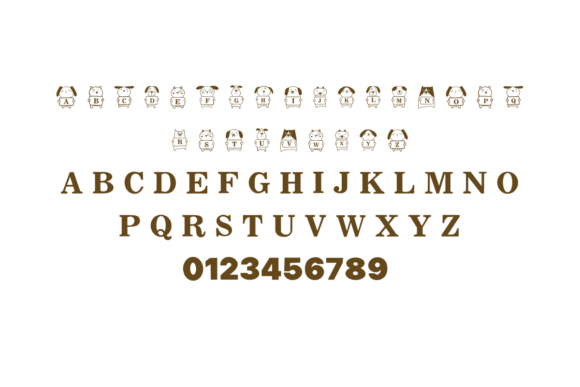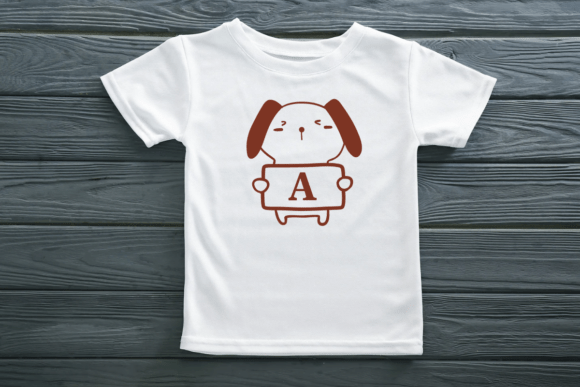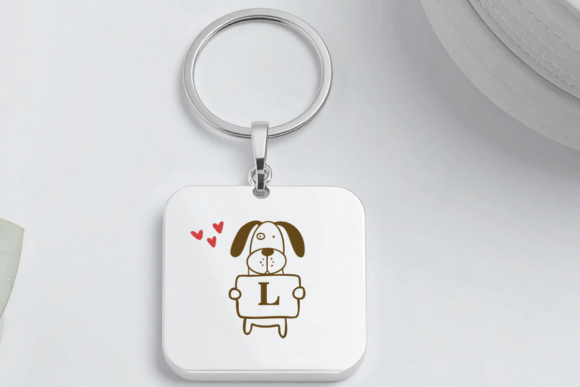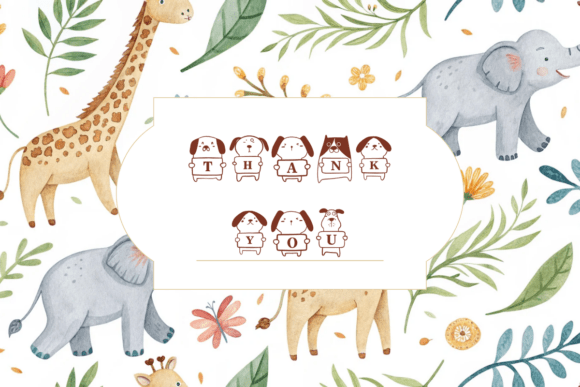
The Cuteness is Overload: Discovering the Animal Font
I’ll never forget the time I was working on a project for a children’s birthday party invitation. I had the design concept all nailed down, but I just couldn’t find the right font to bring it all together. That’s when I stumbled upon the Animal font, and let me tell you, it was love at first sight! 🐰 The cute, playful, and whimsical vibe was exactly what I needed to make the invitation pop. In this article, I’ll share my experience with the Animal font, its features, and how to make the most of it in your creative projects.
• ✨ Extremely cute and playful, perfect for projects that require a fun and whimsical touch
• ✅ Highly versatile, works well for titles, headings, and even body text
• 🎉 Supports multiple languages, making it a great choice for global projects
While I absolutely adore the Animal font, there are a few things to keep in mind:
• 🤔 Some characters may appear a bit quirky or irregular, which can be jarring if you’re used to more traditional fonts
• ⚠️ Not all glyphs or special characters are included, so be sure to test it thoroughly before committing to a project
One of the best things about the Animal font is its OpenType features and glyphs. With access to stylistic alternates, you can add more personality to your text and make it truly unique. For example, you can use:
• Ligatures to connect letters and create a more fluid look
• Stylistic alternates to swap out letters for more decorative versions
• Glyphs to add special characters and icons to your text
The Designer Inspiration Behind Animal Font
The Animal font was designed with the intention of capturing the playful, carefree spirit of childhood. Its creator drew inspiration from classic children’s books, toy designs, and the beauty of the natural world. The result is a font that’s both fun and sophisticated, perfect for a wide range of creative projects.
Font Name Animal Font
Author Apiwat Type
Q: What type of projects is the Animal font best suited for?
A: The Animal font is perfect for projects that require a playful, whimsical touch, such as children’s party invitations, nursery decor, and educational materials.
Q: Is the Animal font available in multiple languages?
A: Yes, the Animal font supports multiple languages, making it a great choice for global projects.